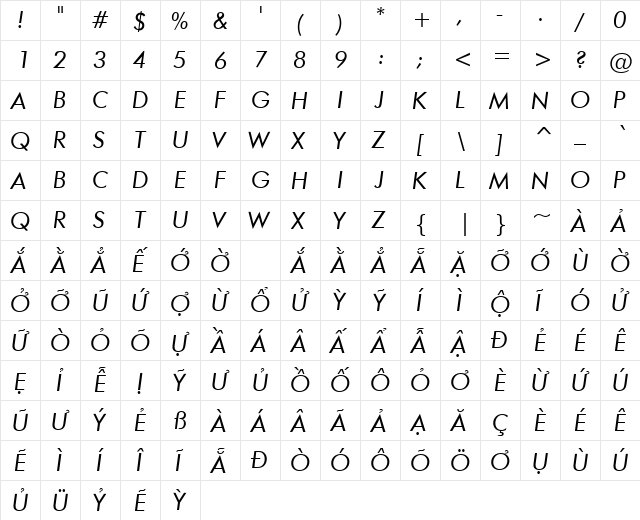
VPS Ha Noi Medium Hoa Italic
Design Context for VPS Ha Noi Medium Hoa Typeface
VPS Ha Noi Medium Hoa offers clean, dependable letterforms without strong stylistic allegiance, making it a practical choice for designers who need flexibility. The dynamic lean of this cut emphasises speed and emphasis in any layout.
Pro Tip: Try VPS Ha Noi Medium Hoa for annotation and caption copy alongside an upright companion — the contrast in angle creates a dynamic but ordered typographic system.